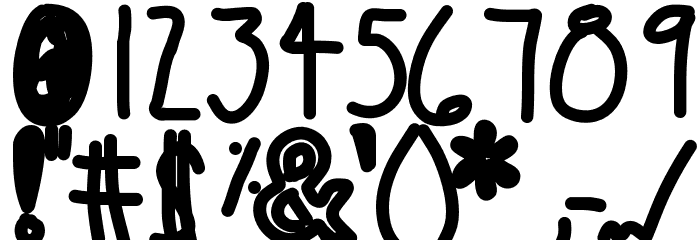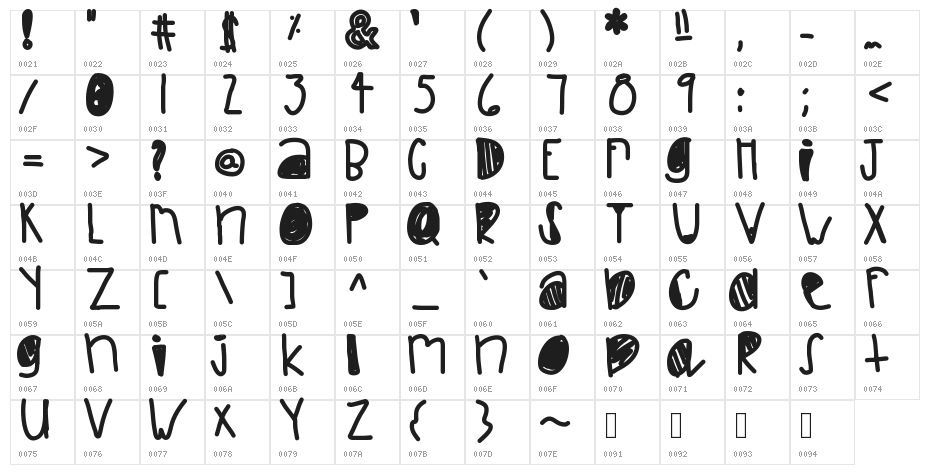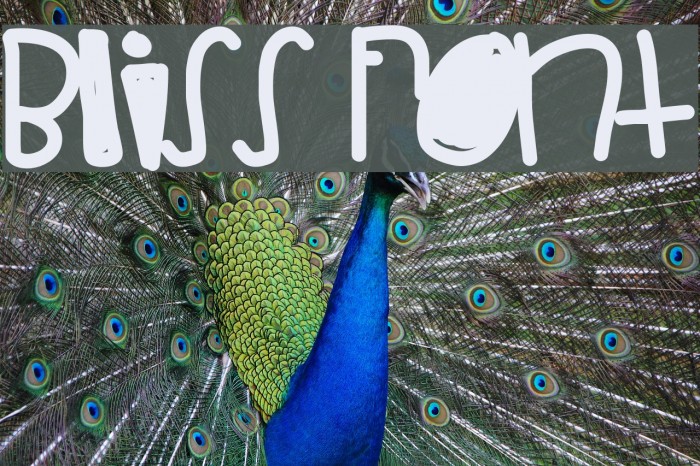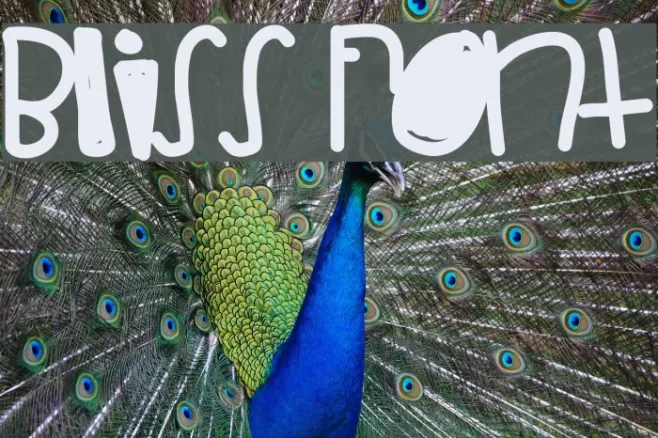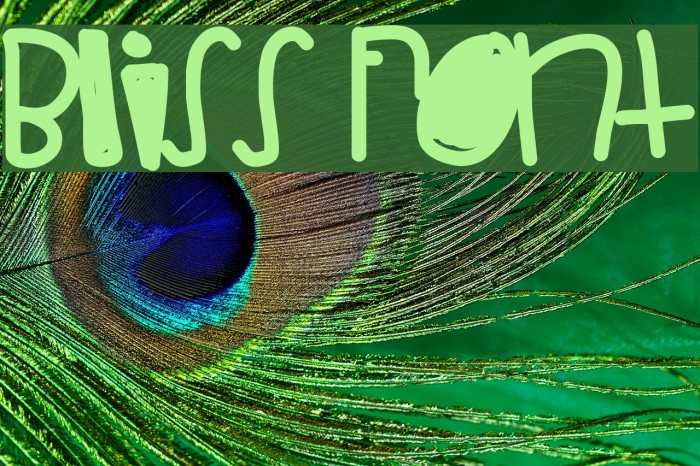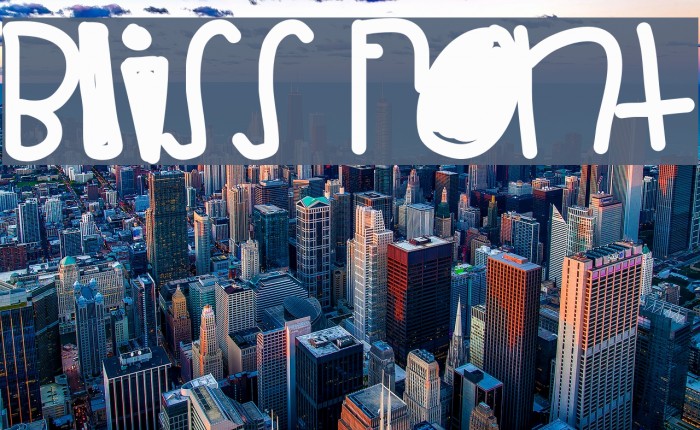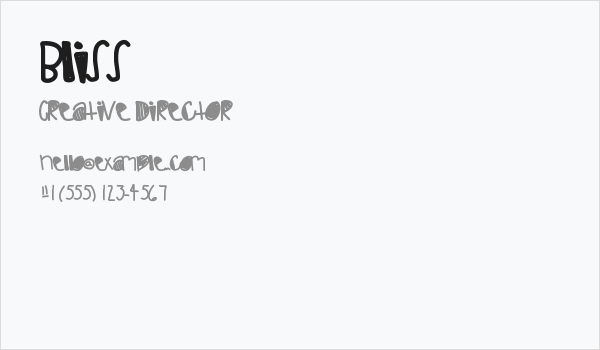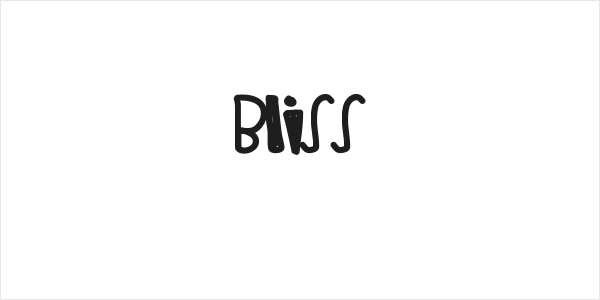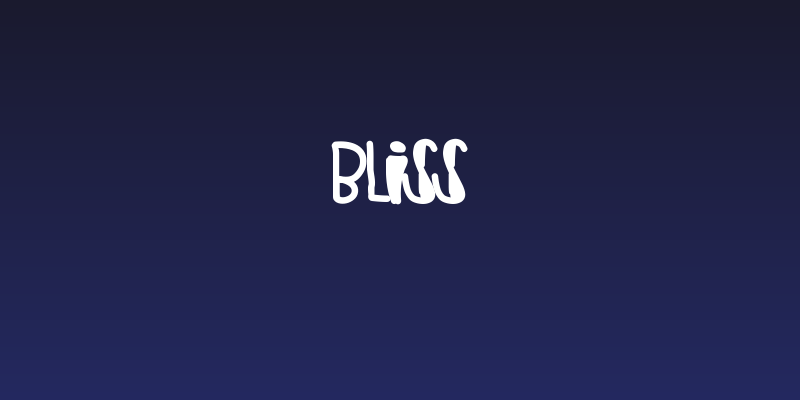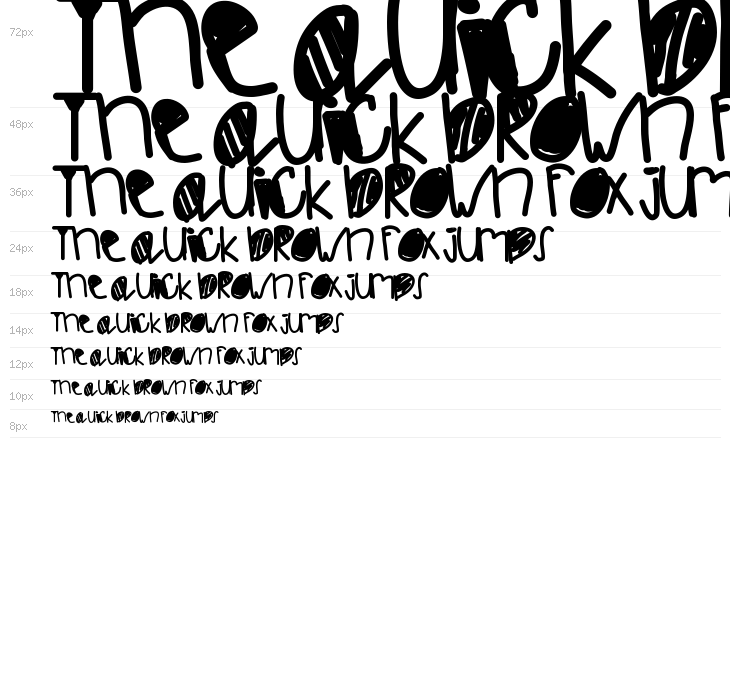
Bliss Font
Bliss Description
This font features a playful and whimsical style, characterized by its bold, hand-drawn appearance. The letters are irregular and have a casual, informal feel, with a mix of thick and thin strokes that add to its unique charm. The uppercase and lowercase letters maintain a consistent style, while the numbers and special characters complement the overall design. This font's quirky and artistic nature makes it stand out, offering a creative and fun aesthetic that is both eye-catching and memorable.
| Proposed Projects | Ideal for children's books, creative posters, playful branding, and artistic projects. |